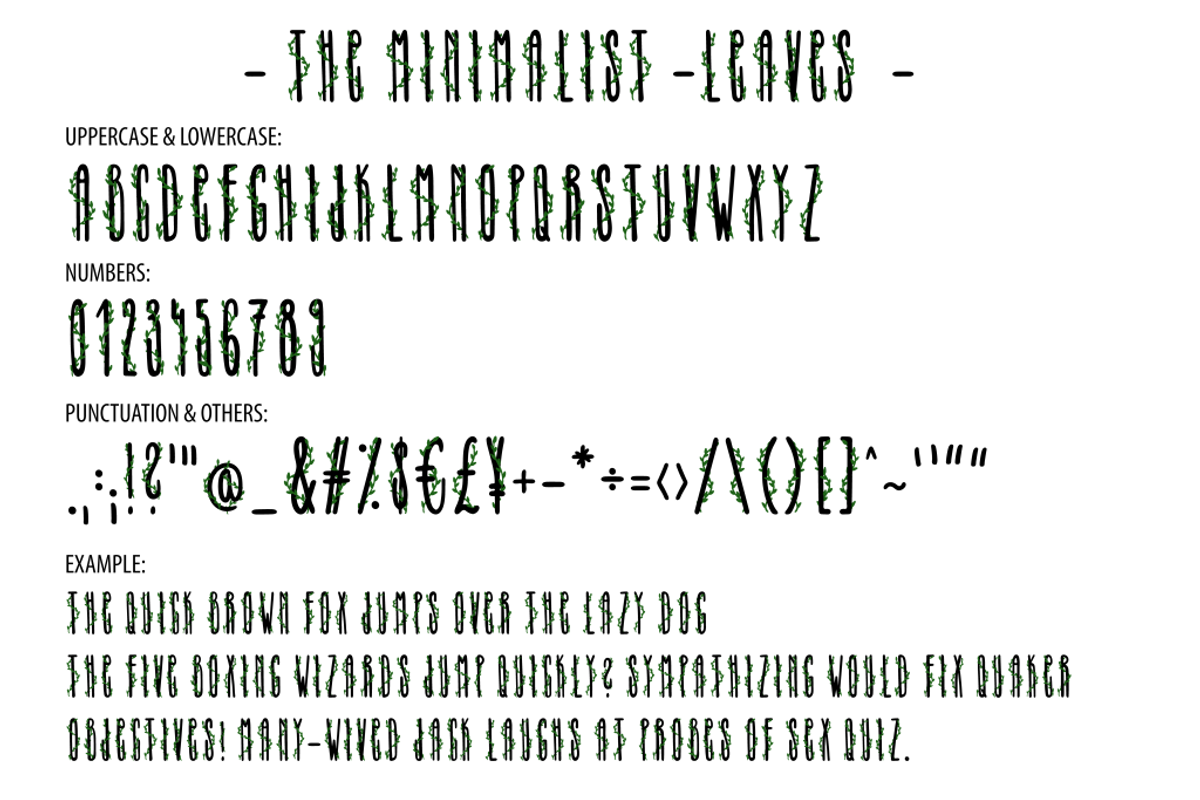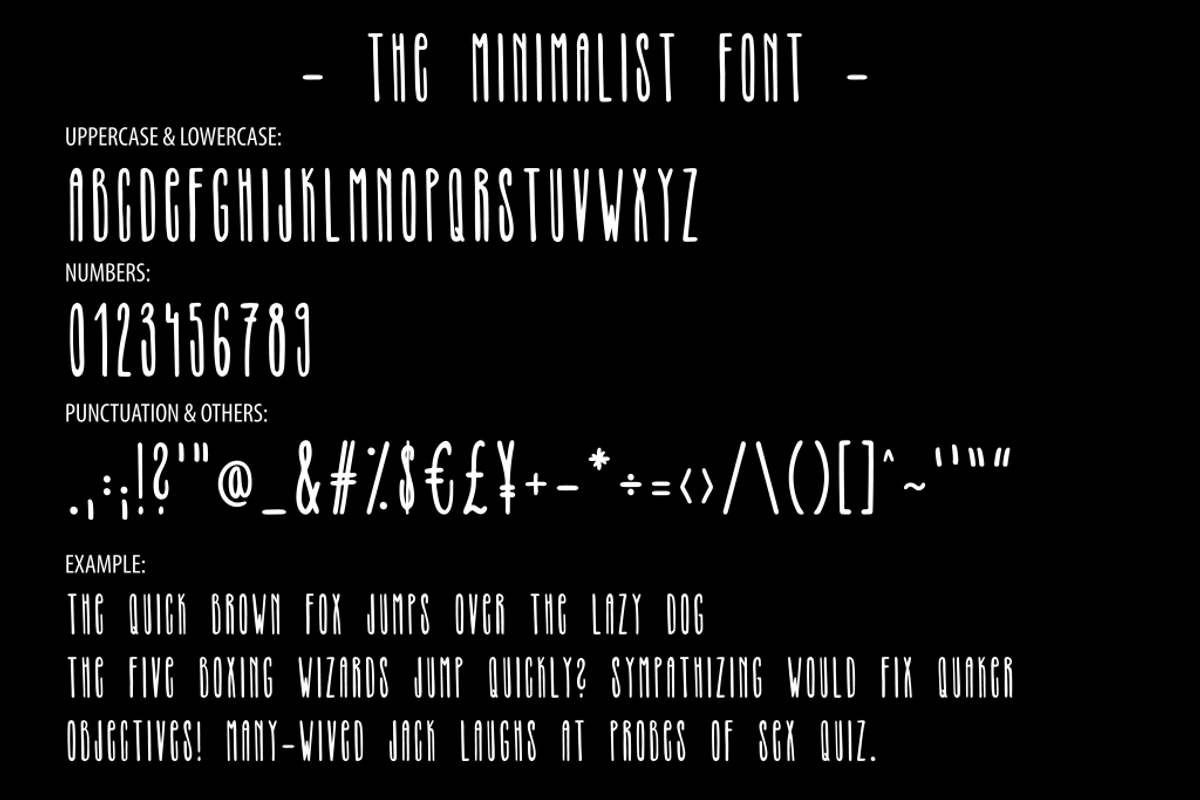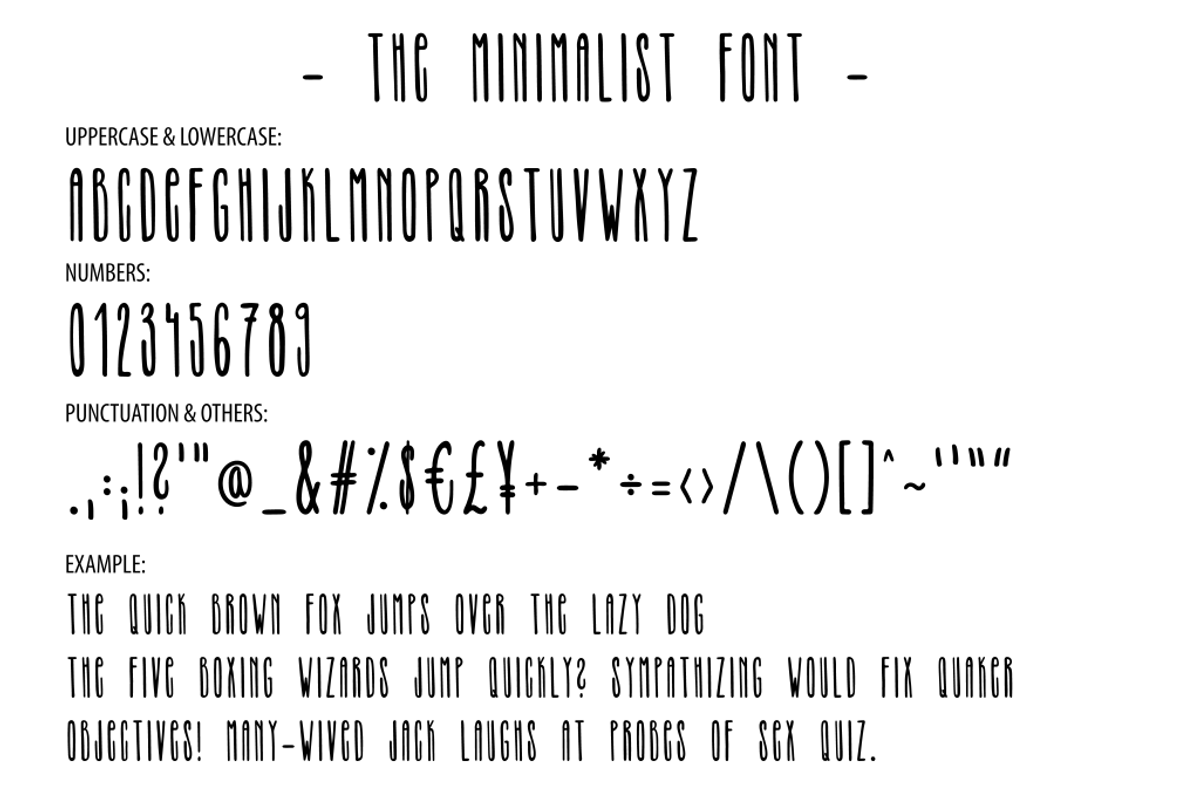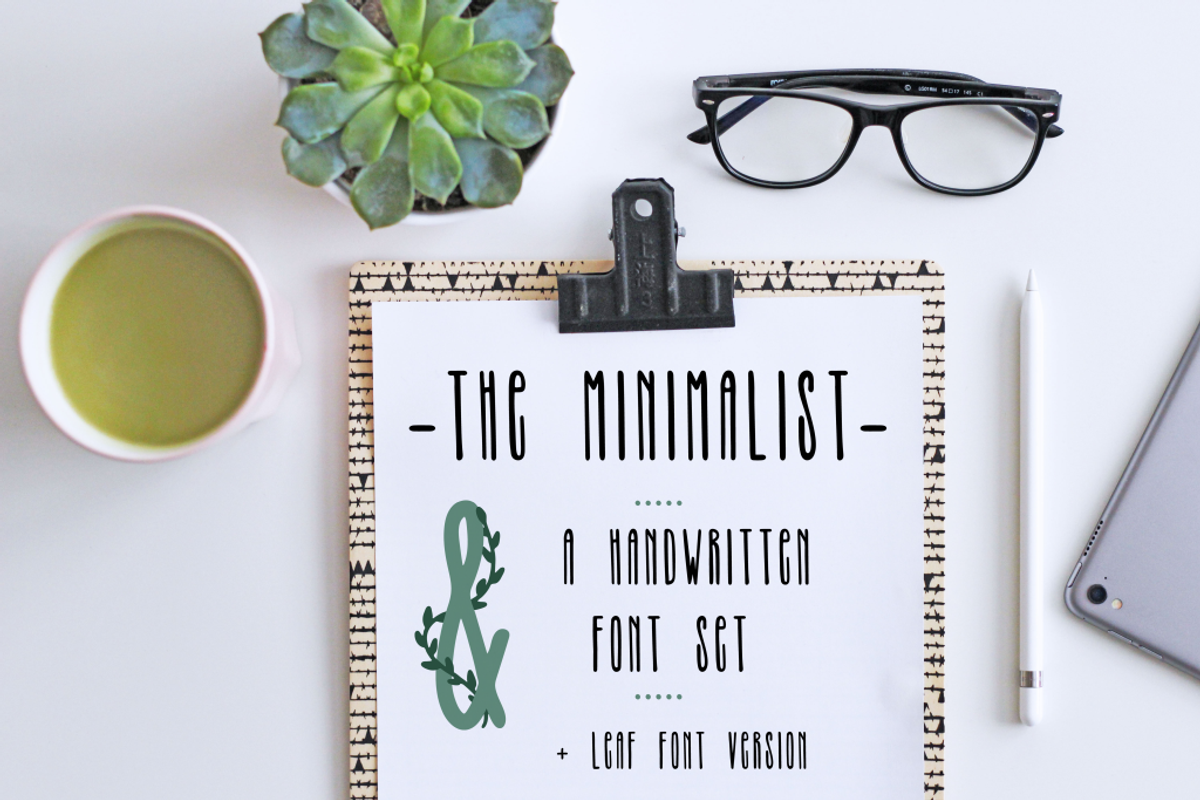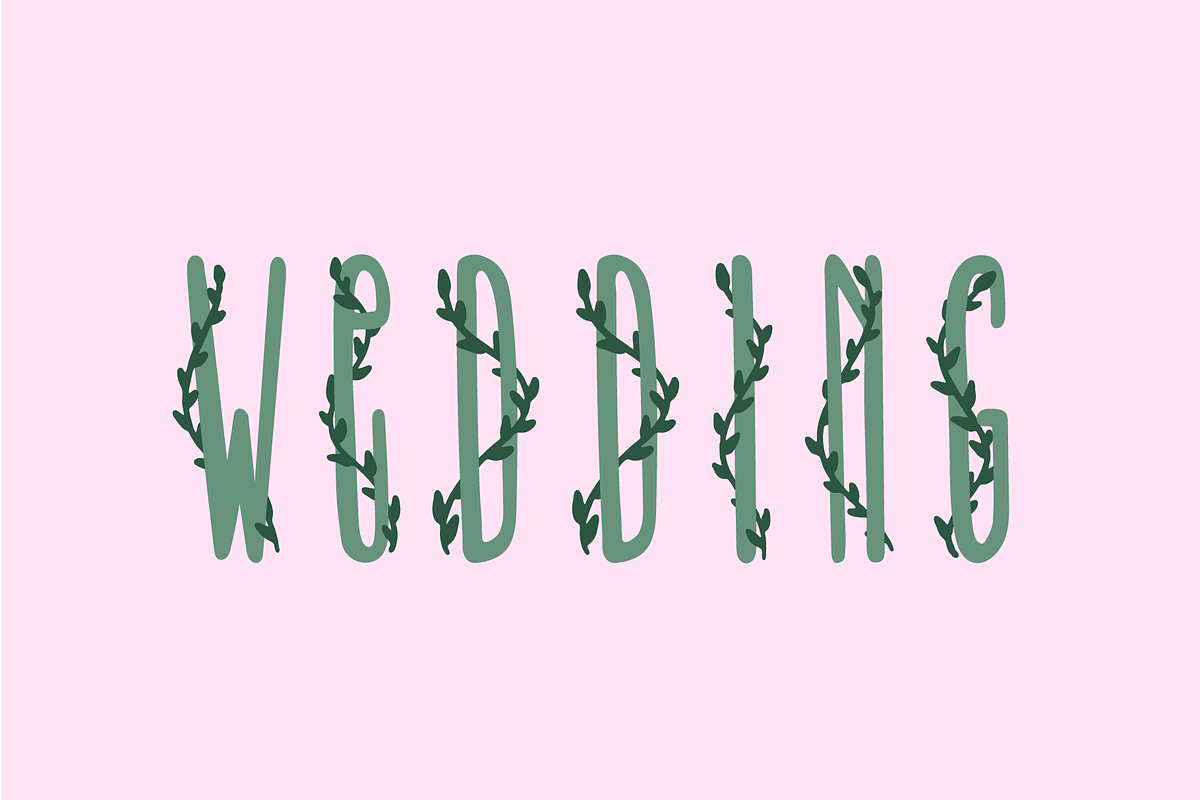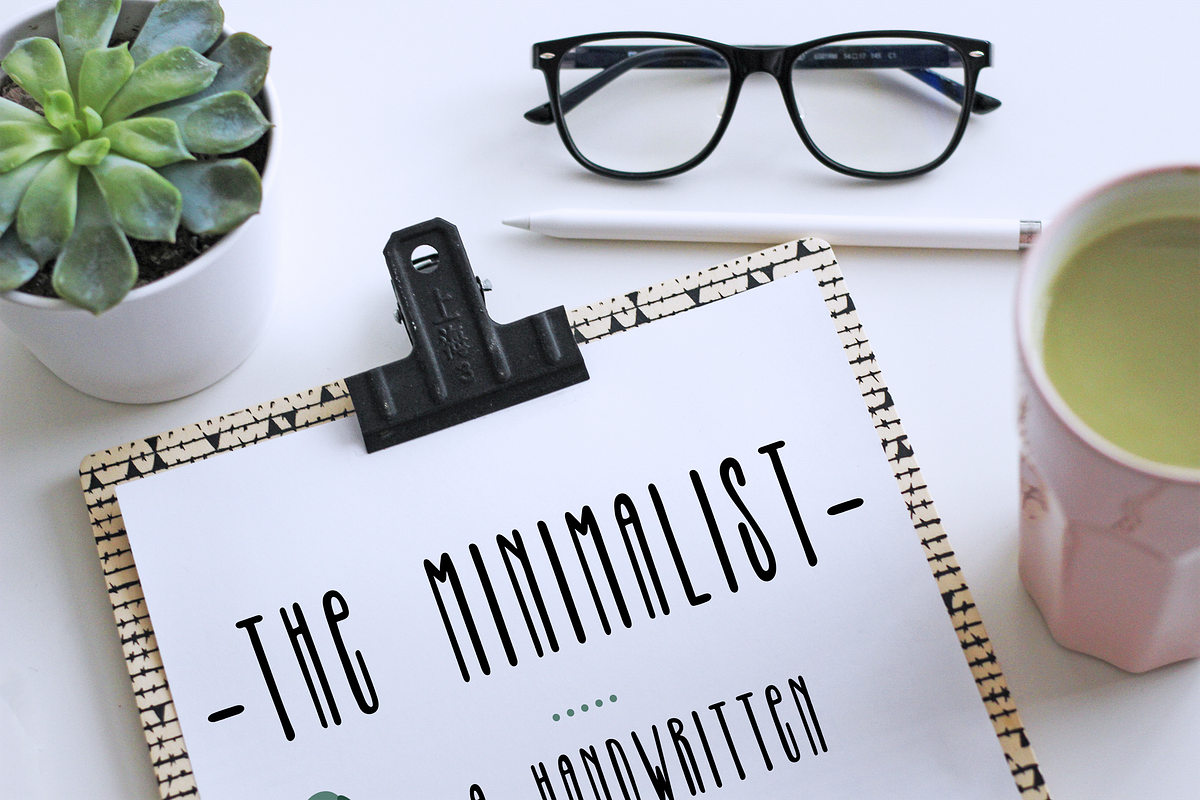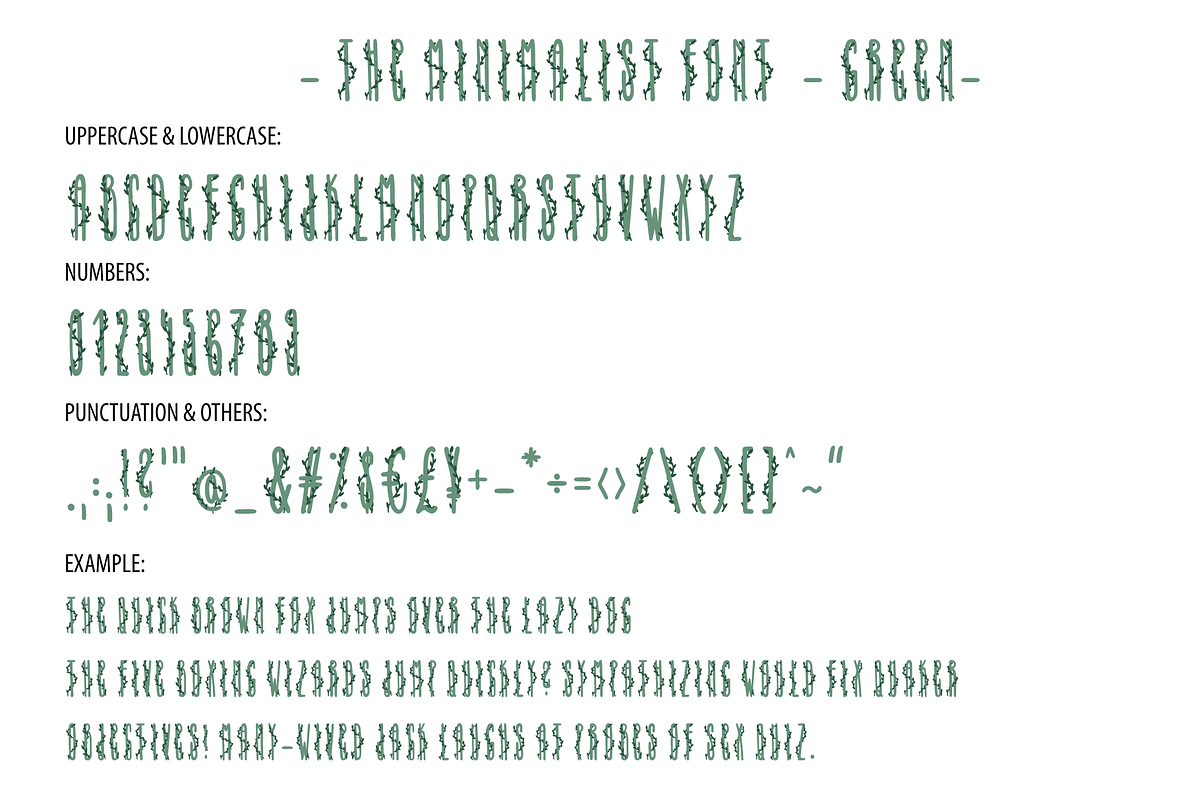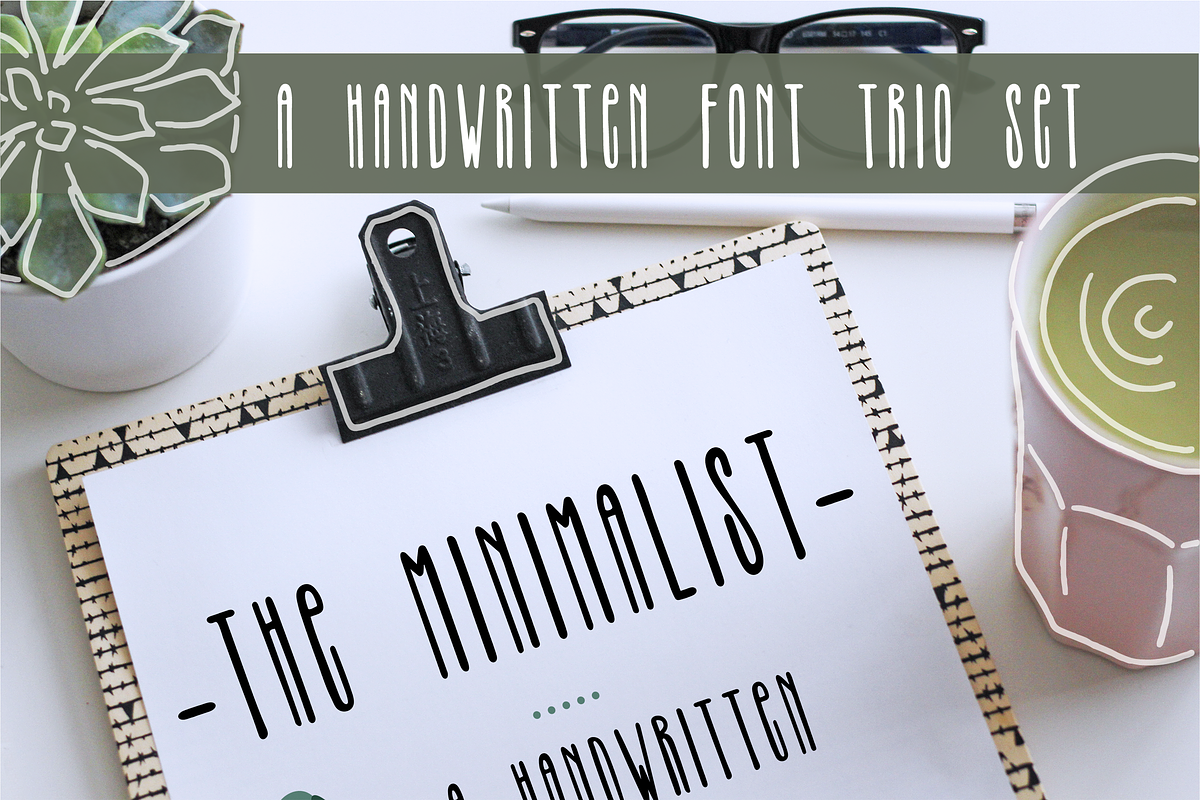
THE MINIMALIST - skinny tall font
Hello, I am glad to present you my colorful skinny handwritten all caps font trio The Minimalist with floral ligatures. In this set you will find standard regular high thin font, also this font with green leaves around characters and the same version with all characters in green. This font is perfect for creating logos, headlines, blogs, websites, stationary and other amazing stuff.
- FONT The Minimalist available in 3 styles:
- TheMinimalist (OTF) - black and white regular
- TheMinimalist-Green (OTF) - colorful floral
- TheMinimalist-Leaves (OTF) - colorful floral